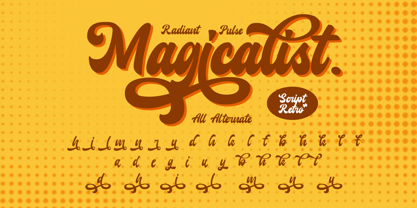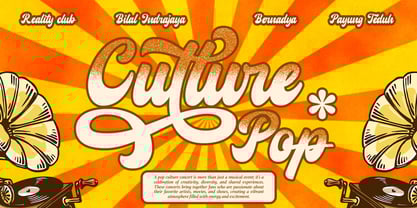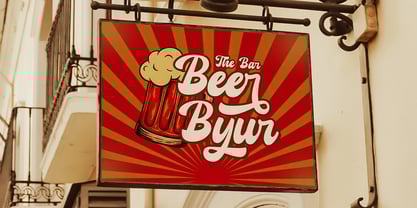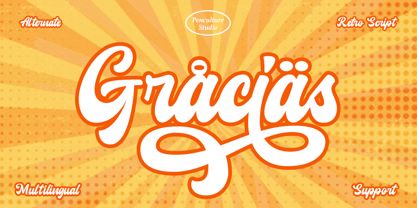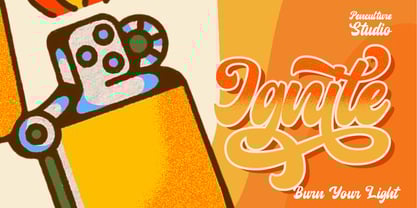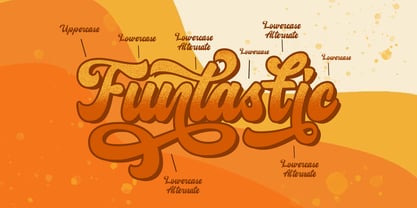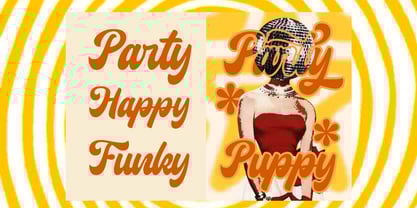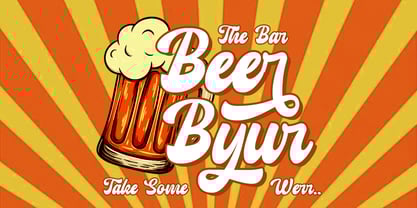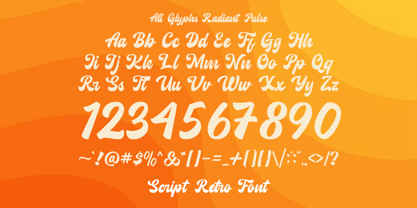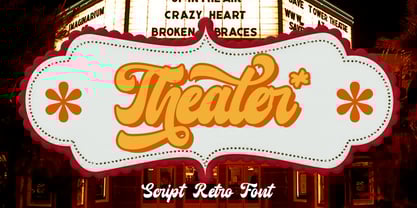
Radiant Pulse
by Pen Culture
The Radiant Pulse Font Family was designed by Revo Farsiky and published by Pen Culture. Radiant Pulse contains 1 styles. More about this family
Radiant Pulse is a vibrant retro bold script font that commands attention and radiates charm. With its stunning stylistic alternates and meticulously crafted ligatures, this font offers endless possibilities for creating unique, dynamic designs.
Perfect for logos, posters, branding, packaging, and more, Radiant Pulse combines bold, nostalgic energy with a modern edge, making it an excellent choice for standout typography.